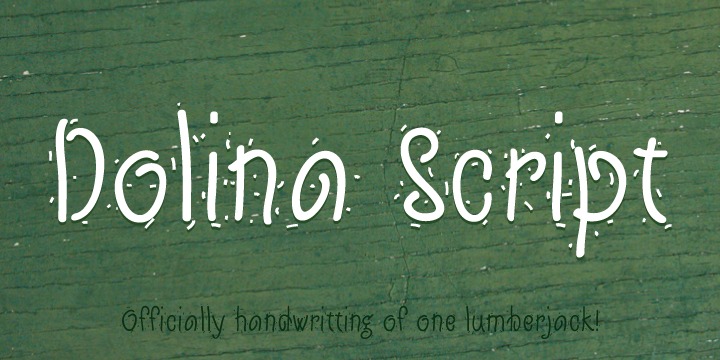
Dolina Script Font
Welcome to the world of Dolina Script Font, a splendid script font crafted by the masterful hands at Tour De Force, exclusively available here for your digital artistry. Dolina Script is not just a font; it's an experience, an expression of creativity waiting to be unleashed.
Picture this: you're holding a vintage love letter, written in a flowing, romantic script, the words dancing across the page like whispers from a bygone era. Now imagine capturing that same essence in your designs, logo, branding, or social media posts with Dolina Script.
Feel the nostalgia of handwritten notes, the warmth of heartfelt messages, and the elegance of timeless calligraphy. Dolina Script transports you to a world of enchantment, where every letter carries a story and every word holds a charm.
With its graceful curves and playful flourishes, Dolina Script adds an air of sophistication to your digital creations. Whether it's wedding invitations, personal branding, or social media graphics, this font elevates your designs, making them truly stand out.
But Dolina Script is more than just a pretty face; it's a versatile workhorse that adapts seamlessly to any project. Its elegant style complements both classic and modern designs, effortlessly blending with other fonts or elements.
Don't settle for ordinary fonts; embrace the beauty and uniqueness of Dolina Script. Let its charming strokes infuse your designs with a touch of magic, captivating your audience and leaving an unforgettable impression.